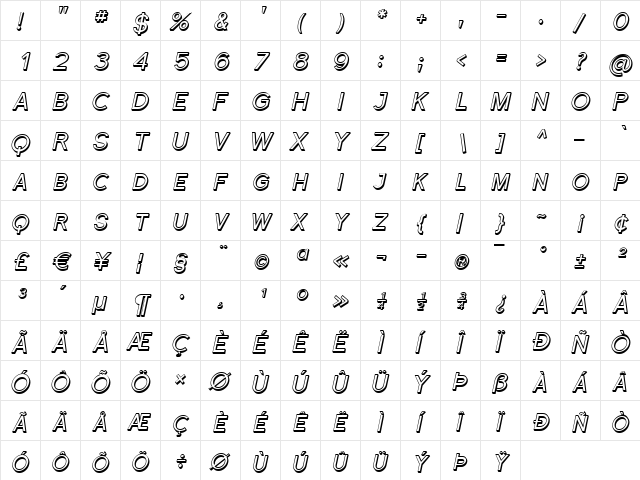
Florencesans SC Shaded Italic
Design Context for Florencesans SC Shaded Typeface
Florencesans SC Shaded offers clean, dependable letterforms without strong stylistic allegiance, making it a practical choice for designers who need flexibility. The slanted form adds forward momentum and visual energy.
Pro Tip: Try Florencesans SC Shaded for annotation and caption copy alongside an upright companion — the contrast in angle creates a dynamic but ordered typographic system.